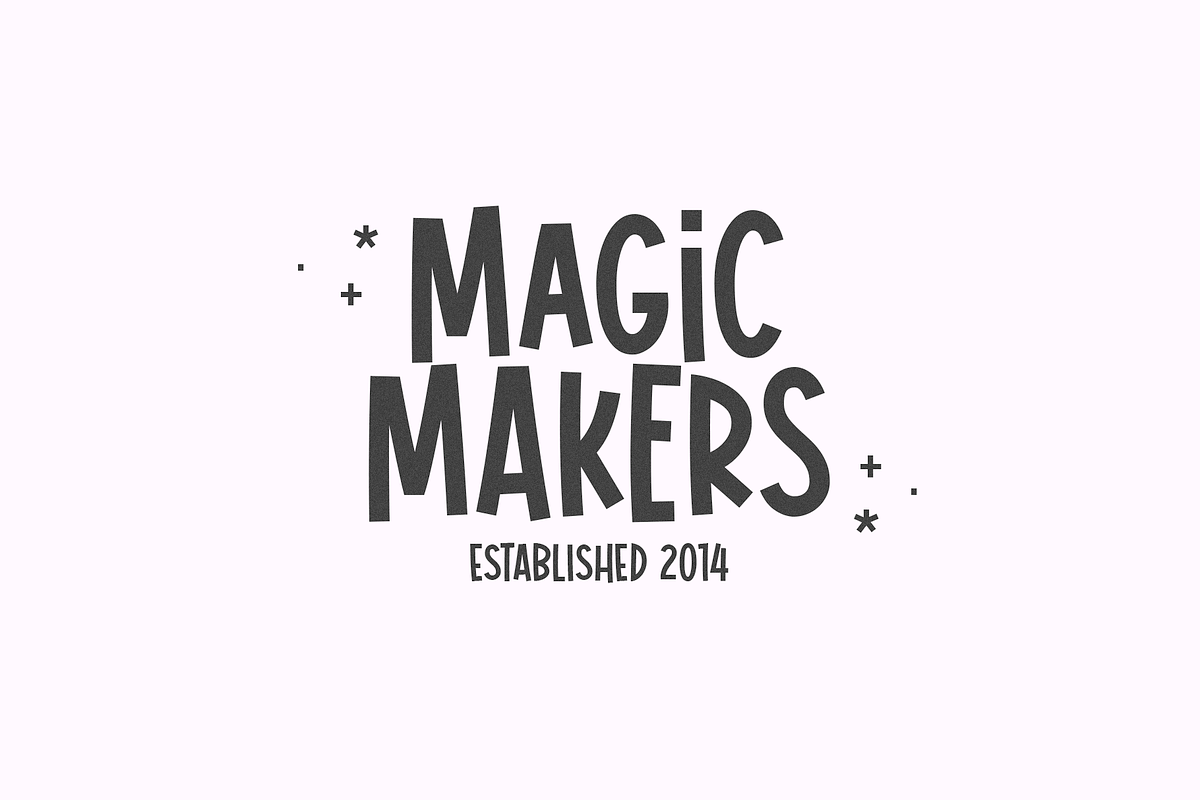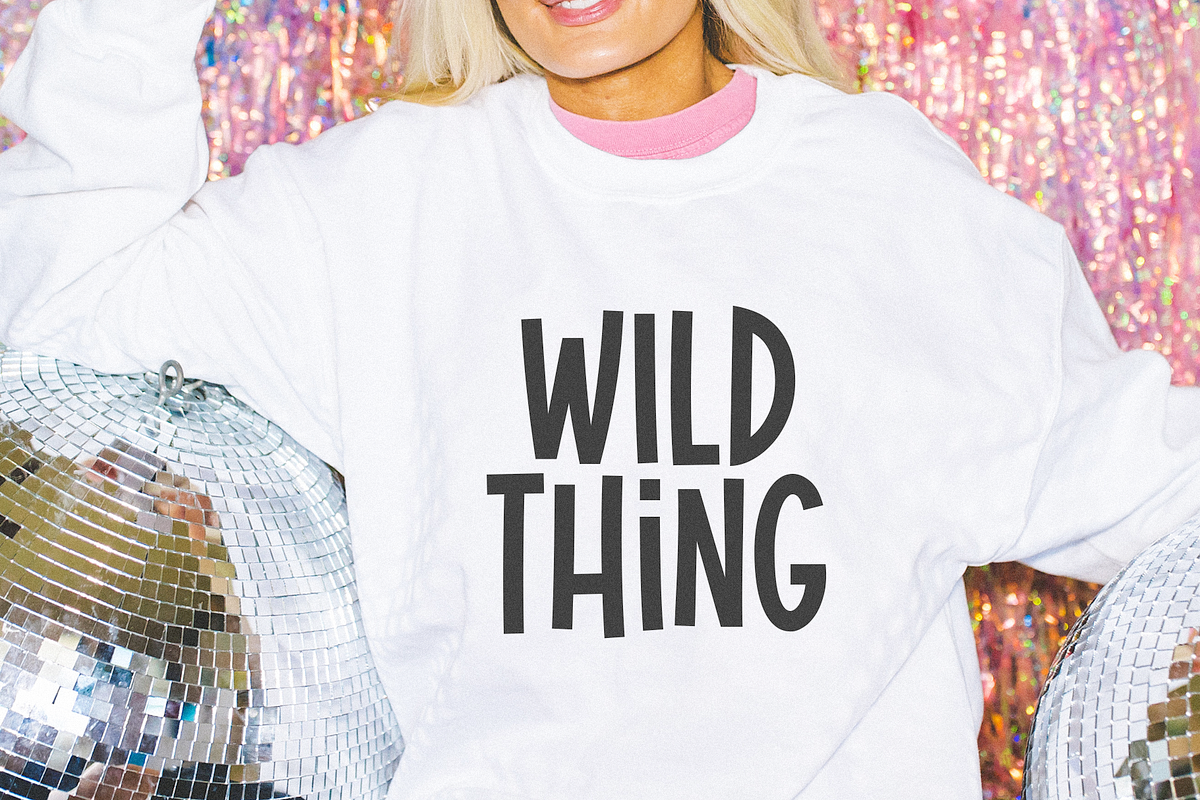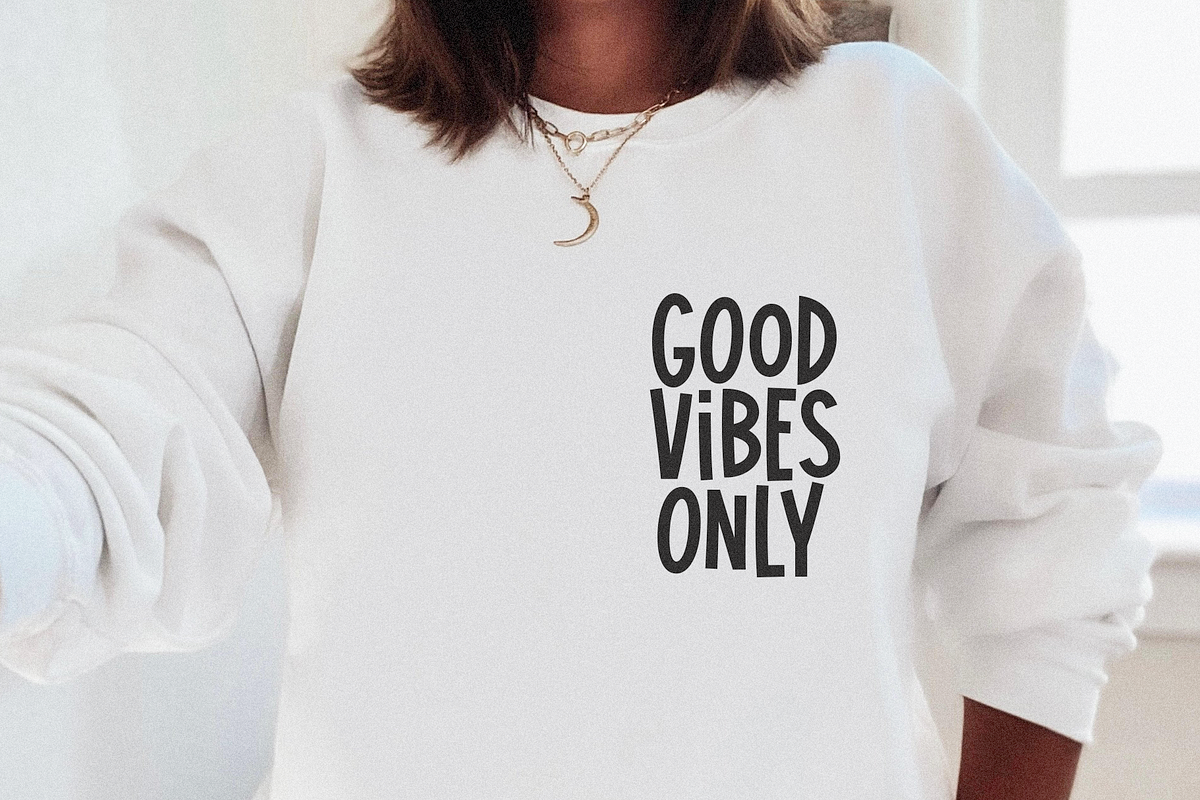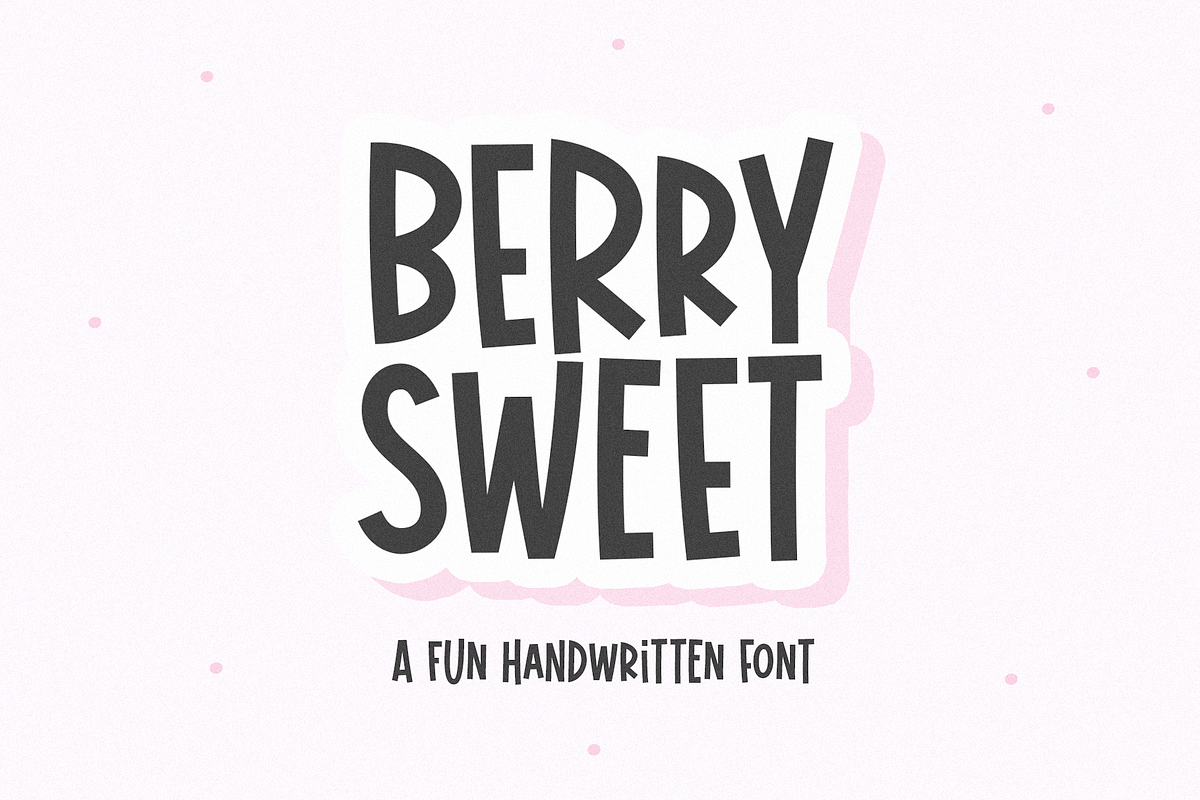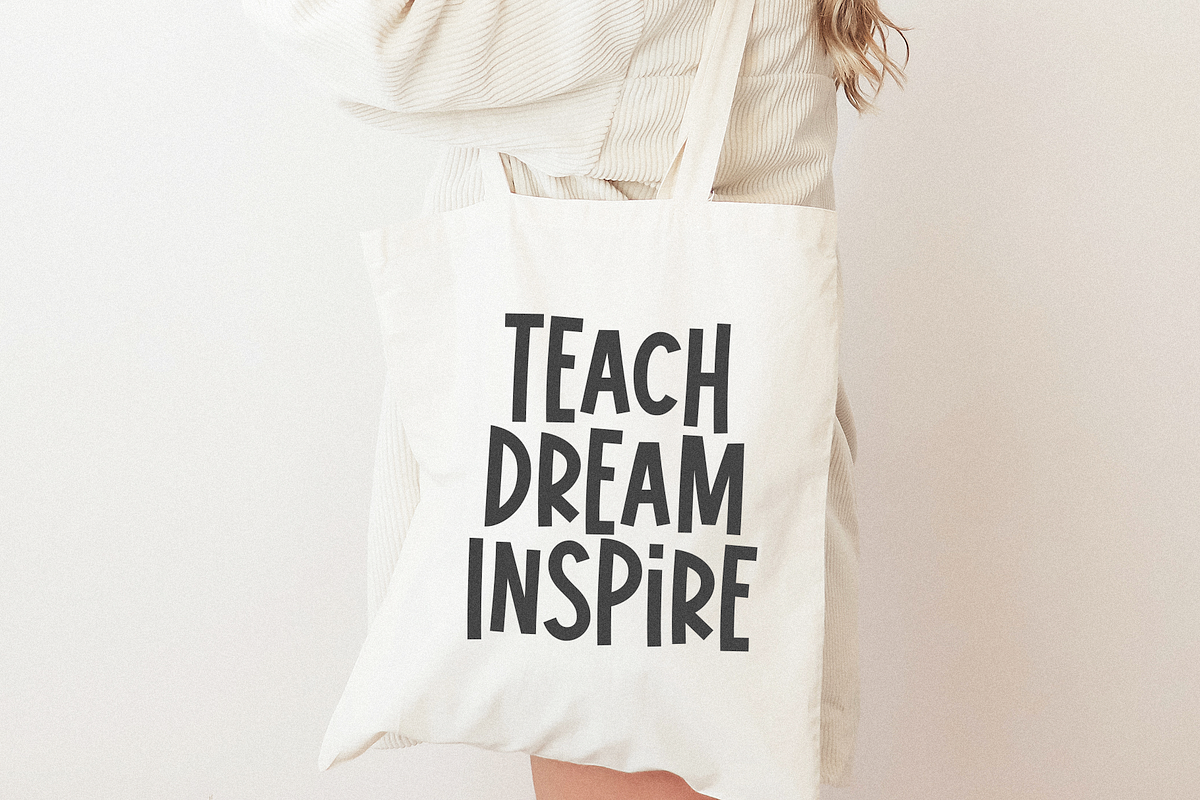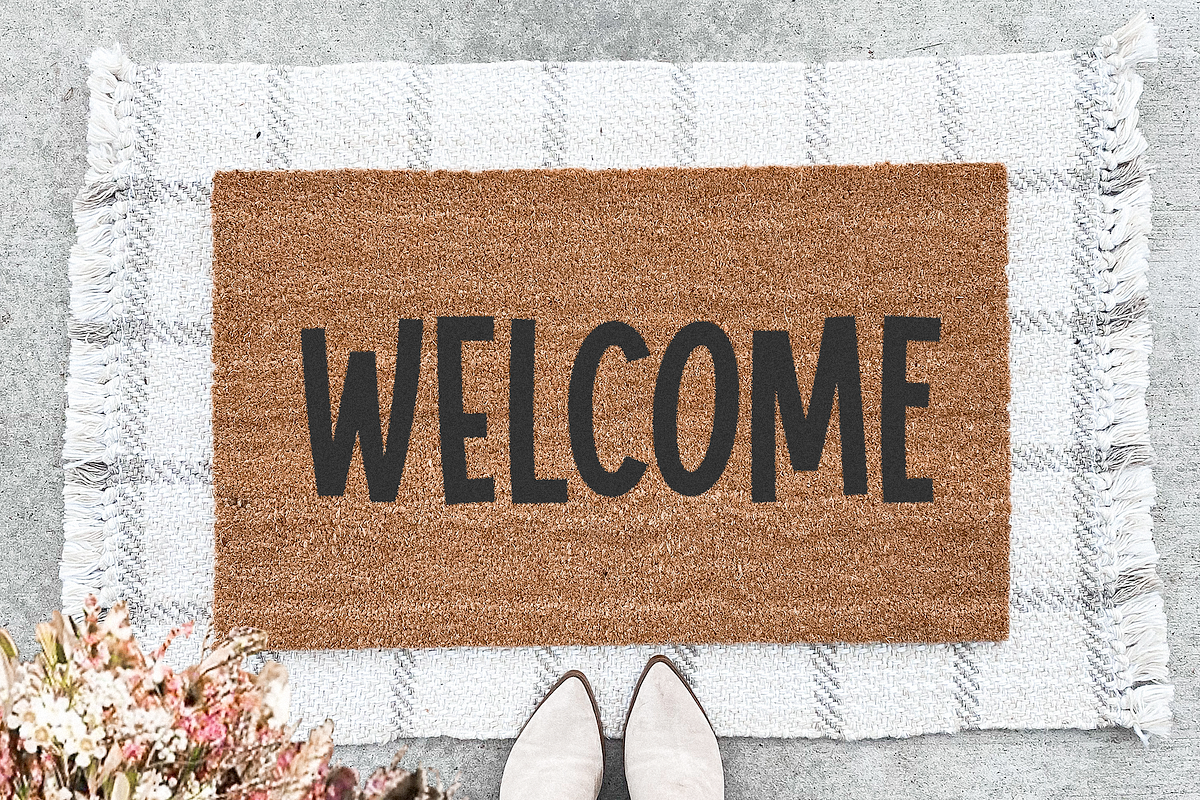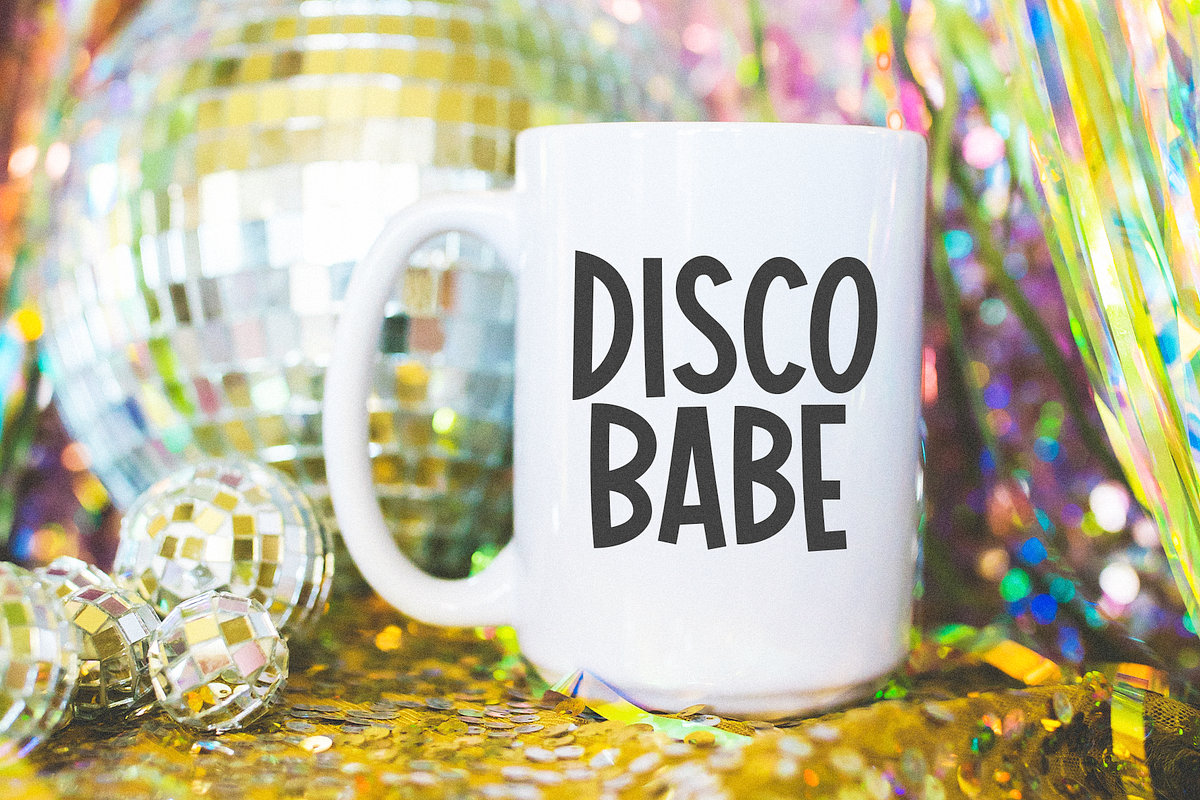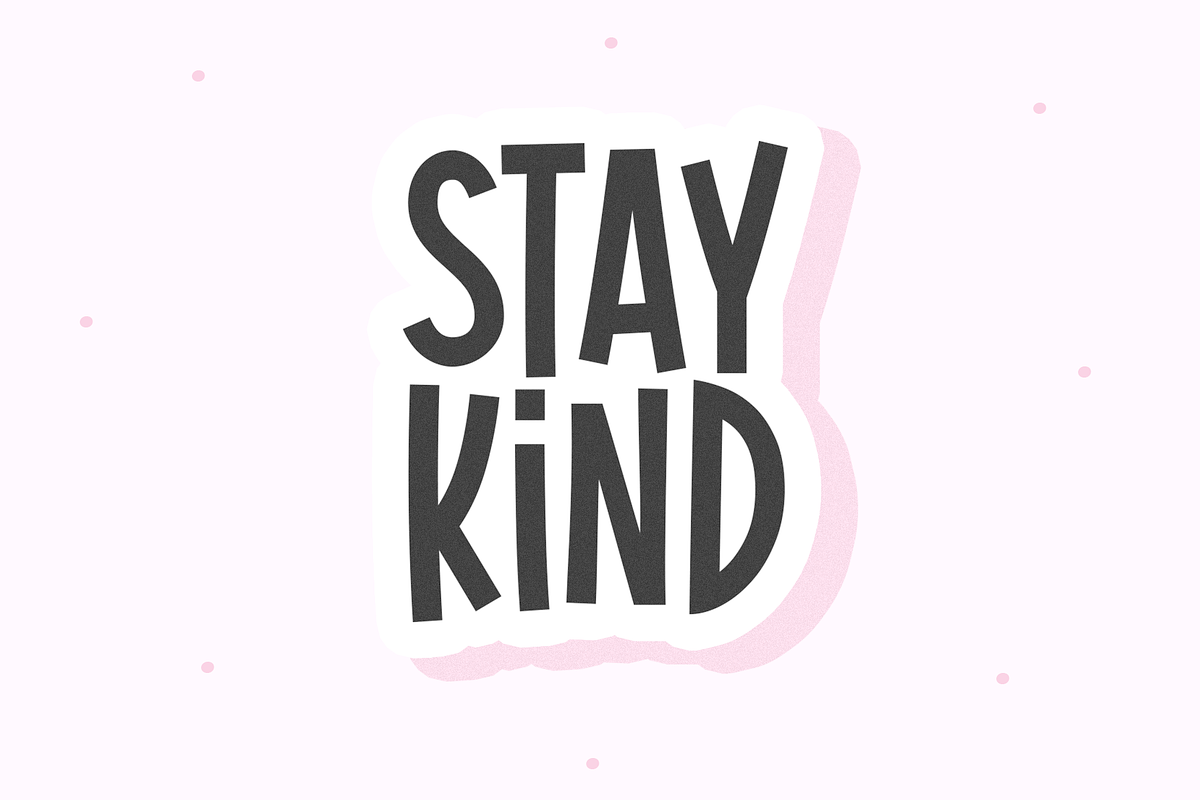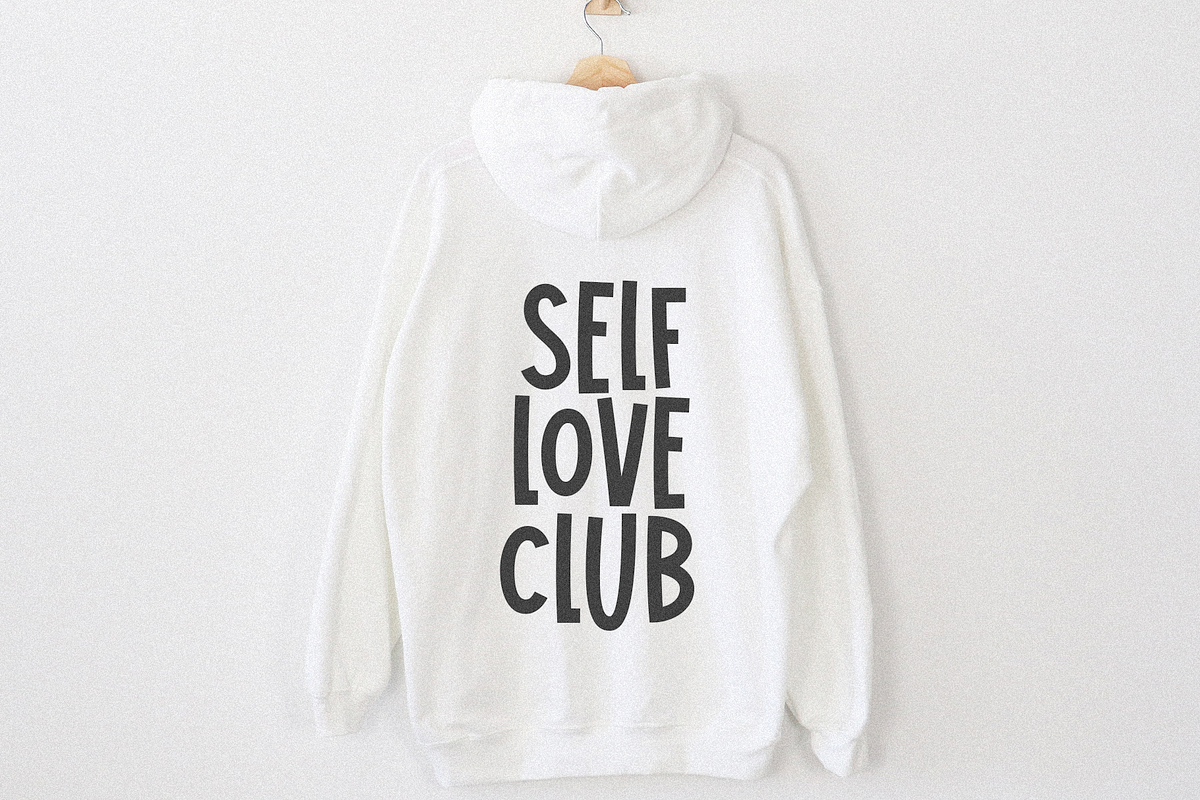
Berry Sweet | Fun Handwritten Font
Berry Sweet is a fun handwritten font!
This font is perfect for craft projects, shirts, mugs, teachers, doormats, stickers and more!